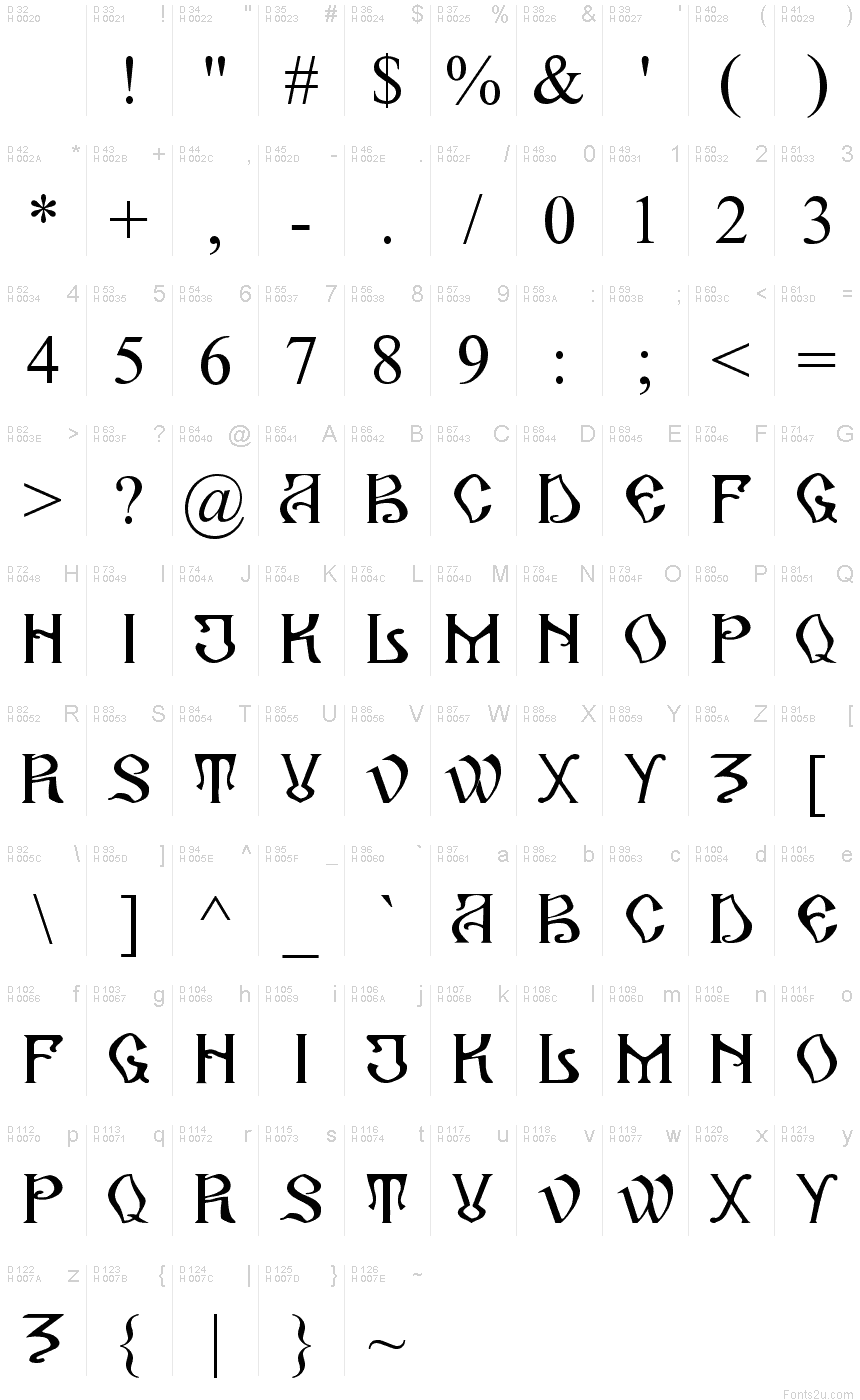
ArhaicRegular
Arhaic Romanesc font by Liviu is a free gothic medieval typeface that looks like it’s been carved straight into stone. Tall, narrow letters twist with sharp inner curves and hooked endings, giving each word a ritual, almost calligraphic presence. The rhythm is dense and dramatic, so a single word or short phrase feels like a crest or sigil rather than simple text.
Using Arhaic Romanesc, titles and logos for fantasy games, book covers, band wordmarks, medieval festival posters, tarot or occult branding, and themed restaurant signage all gain a dark, old-world aura. This free font thrives at larger sizes where its intricate forms stay crisp and legible. Pair it with a clean geometric sans-serif in smaller copy to ground the mood and keep the overall layout readable.